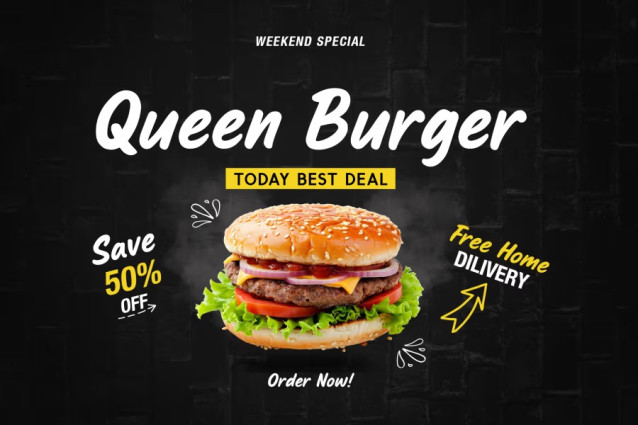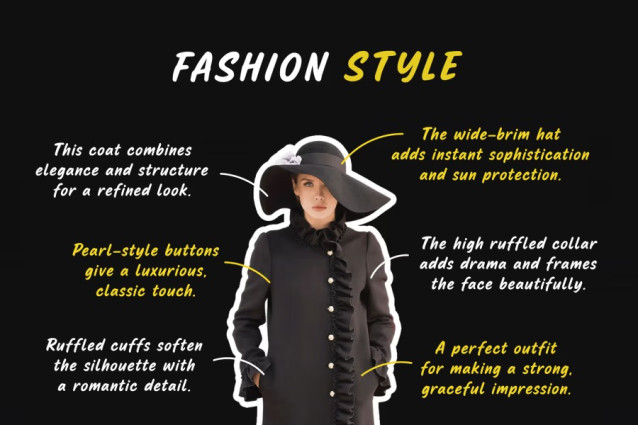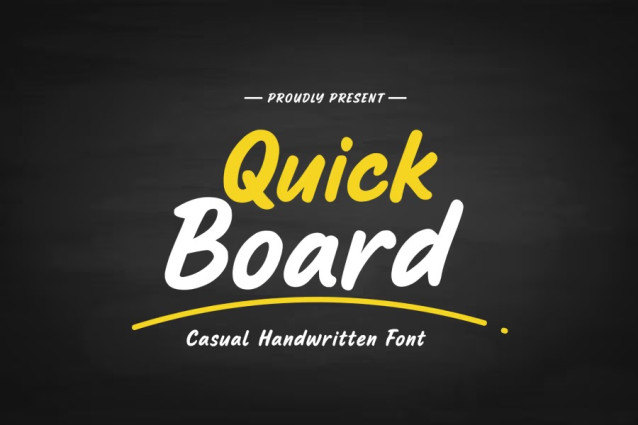
Quick Board Font
Quick Board Font, a casual handwritten font that brings a splash of spontaneity and warmth to your designs. Inspired by quick notes, chalkboard scribbles, and everyday handwriting, this typeface captures the charm of imperfect strokes with a smooth, natural rhythm.
Whether you’re designing for lifestyle brands, food packaging, social media quotes, planner pages, or handwritten-style logos, Quick Board delivers that human touch that feels both personal and authentic.